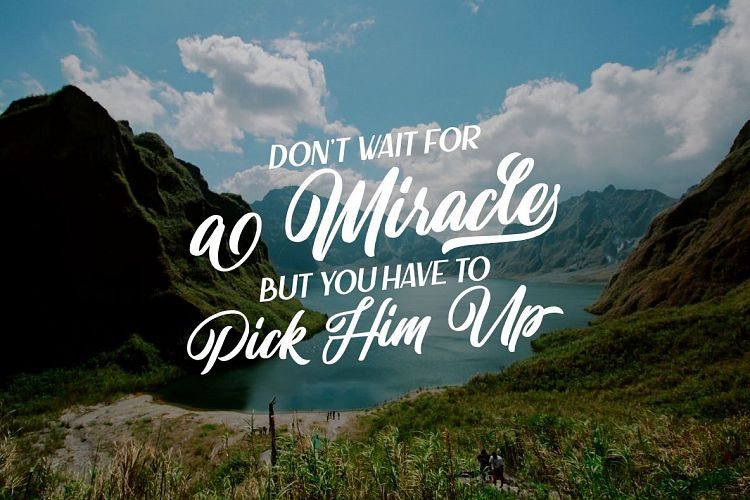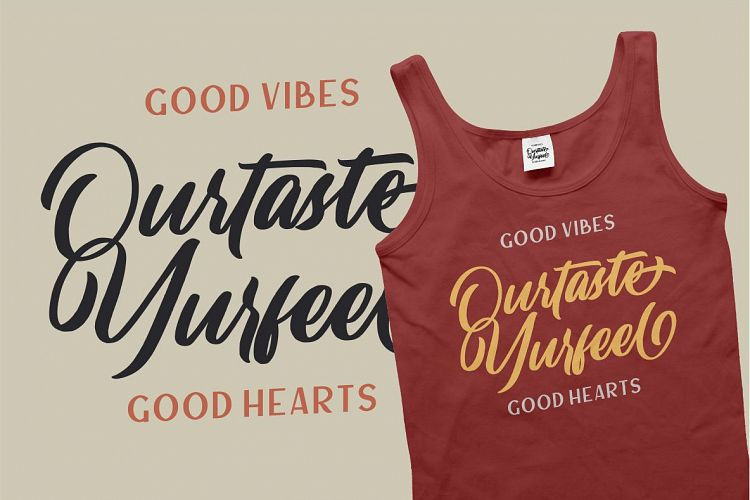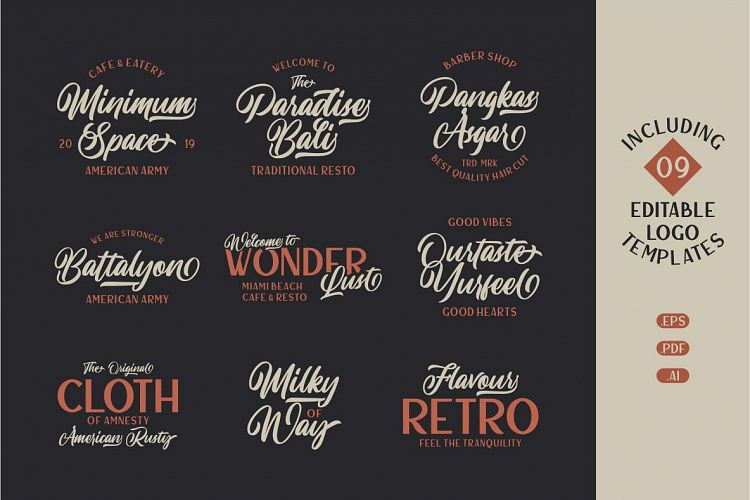
Lastwinter Script Font
A vintage rough script letter font, script with unique strokes make it beautiful and look natural as written by hand! Introducing Lastwinter Font! The Lastwinter comes from hand scratches to get natural and natural writing. With the main vintage theme it will be very interesting if added with various kinds of Alternates (Uppercase) and also 8 kinds of Stylistic Sets in Lowercase. Lastwinter is very suitable for use in various media such as; packaging, logo, label, poster, shirt design, quote of wisdom, handlettering, typography and many other media.